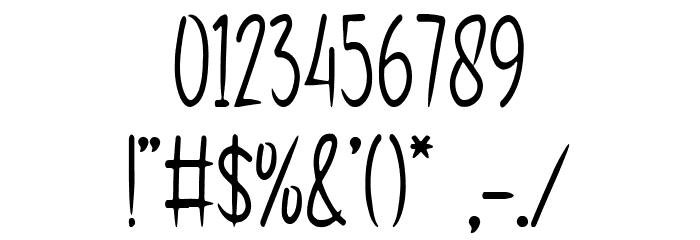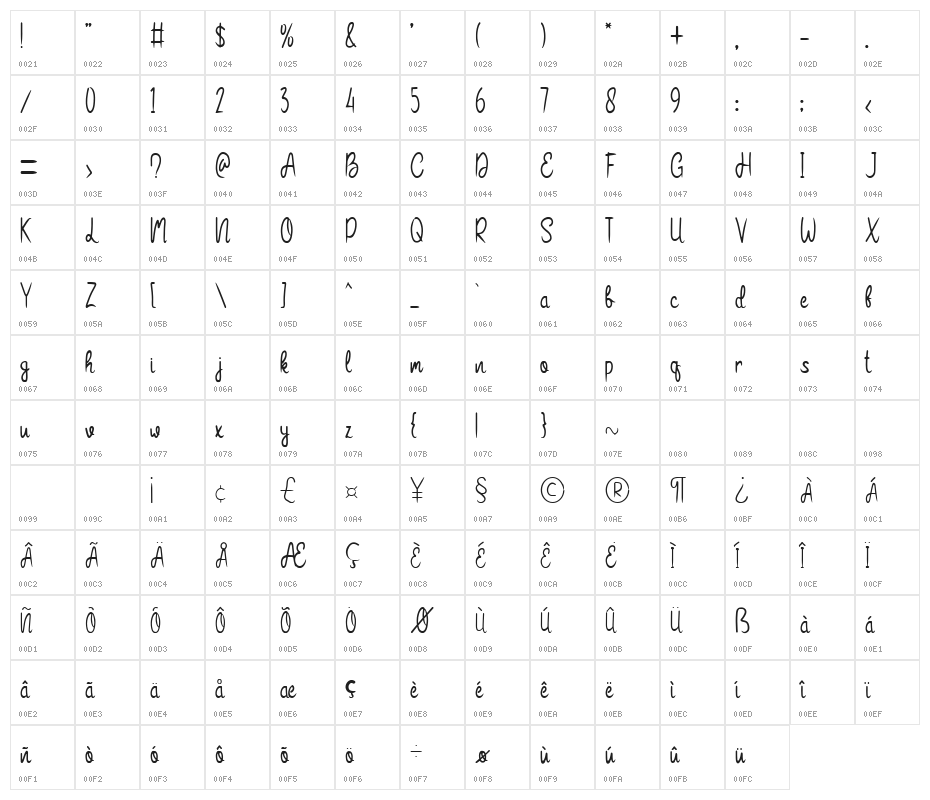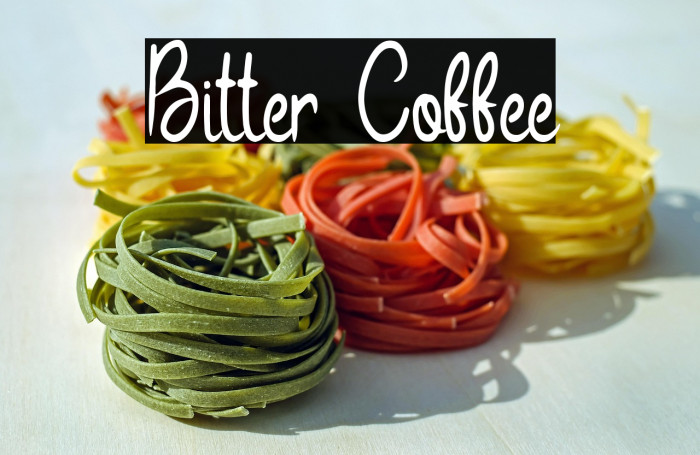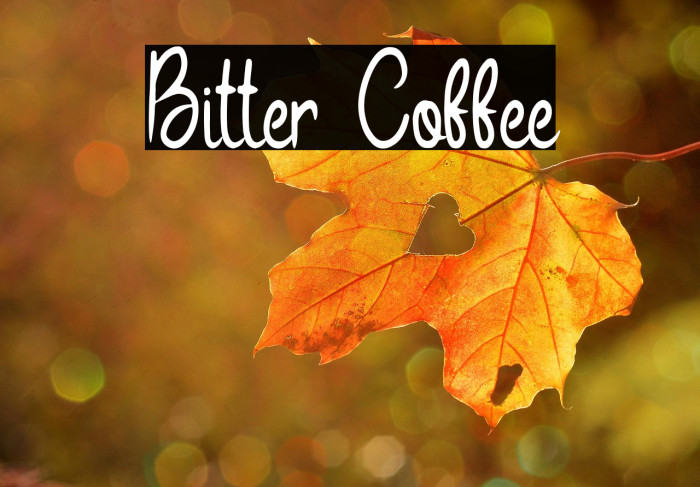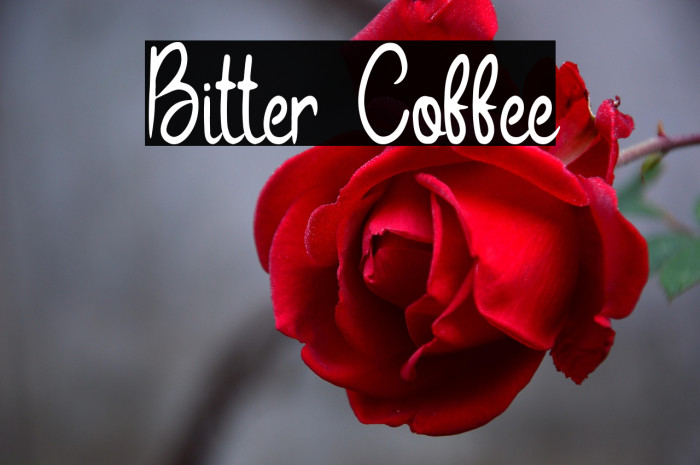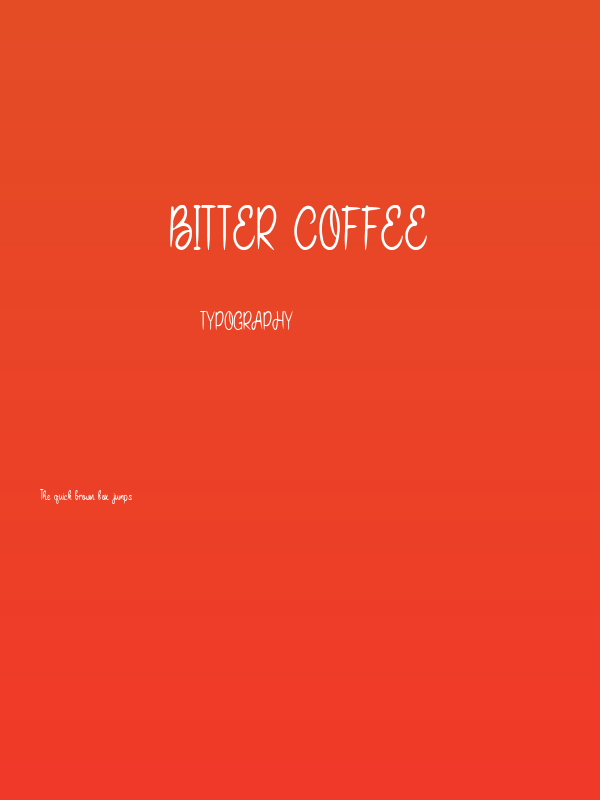
Bitter Coffee Font
Bitter Coffee Description
This font features a playful and whimsical handwritten style, characterized by its smooth, flowing curves and slightly irregular letterforms. The uppercase letters are bold and prominent, while the lowercase letters maintain a consistent, friendly appearance. The numbers and special characters are designed to complement the overall aesthetic, adding to the font's versatility. The strokes are moderately thick, providing a balanced contrast that enhances readability without sacrificing style. This font is ideal for projects that require a personal touch, such as greeting cards, invitations, or branding materials.